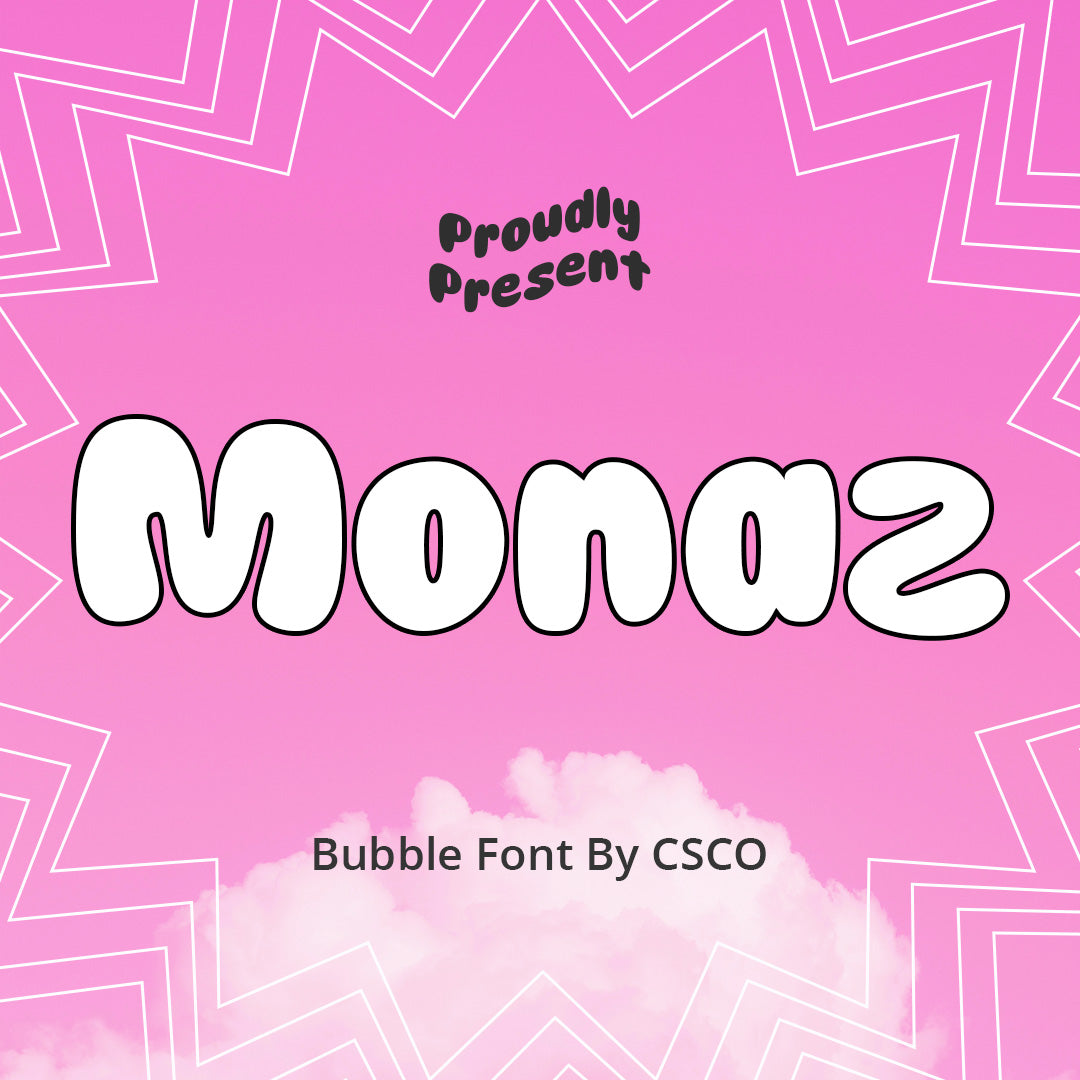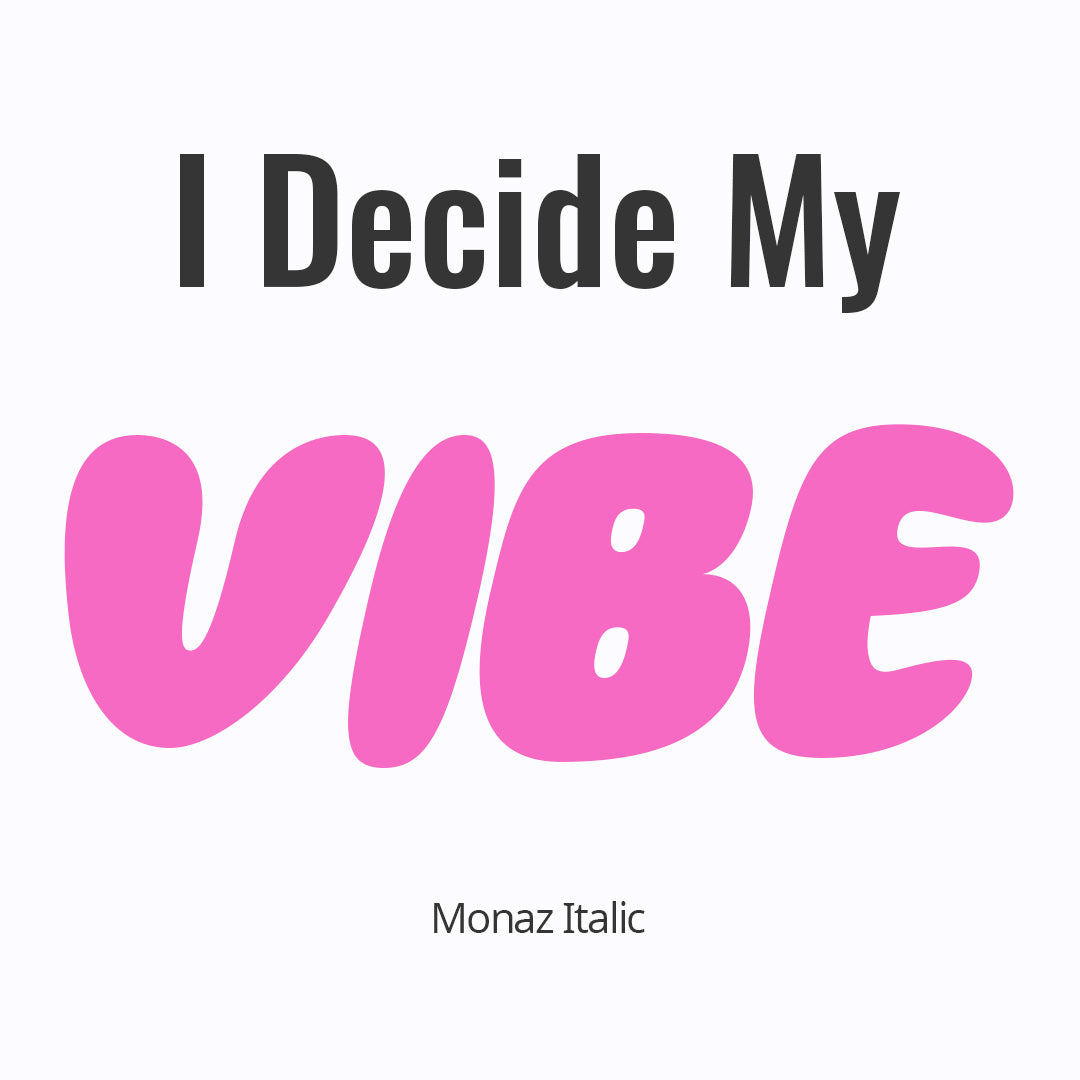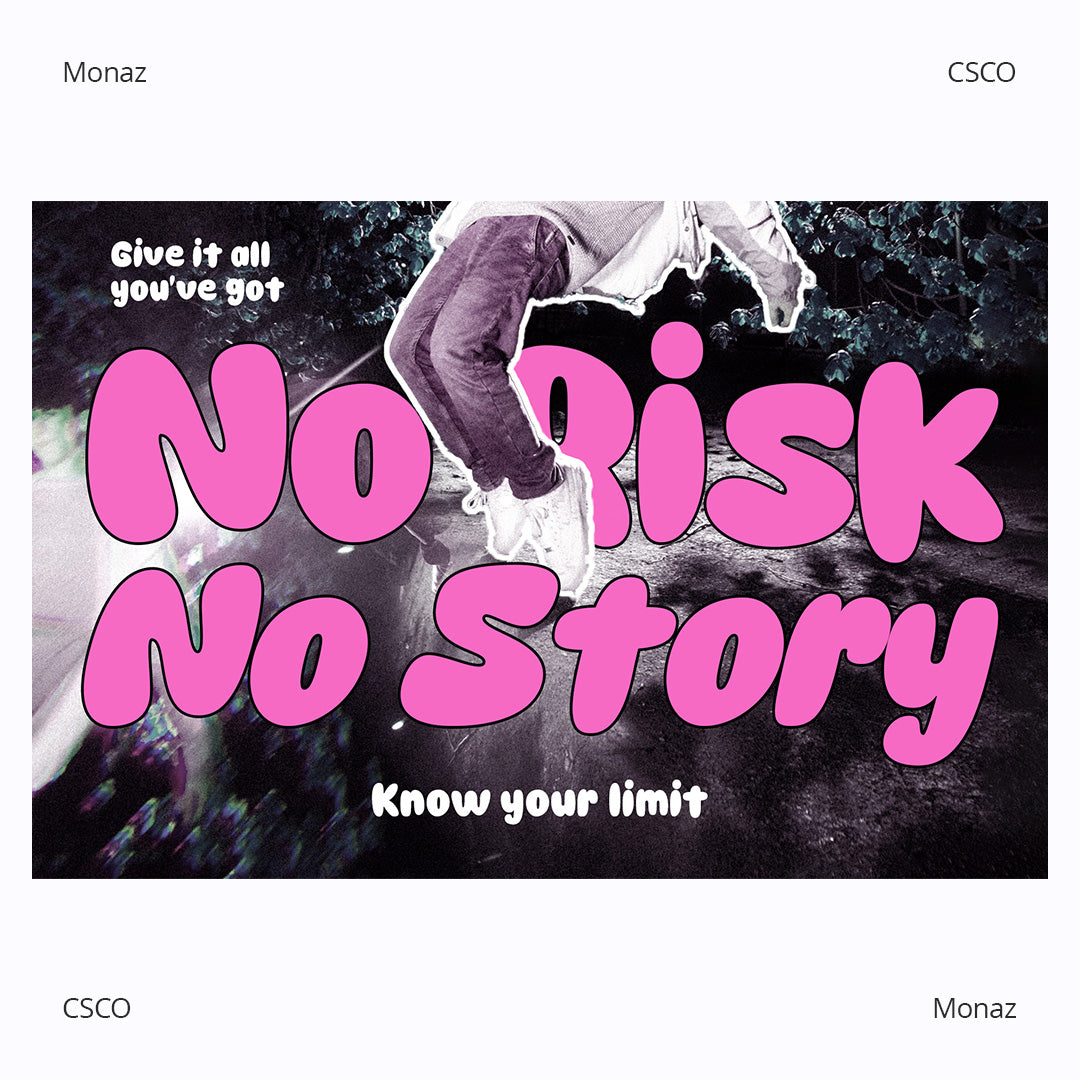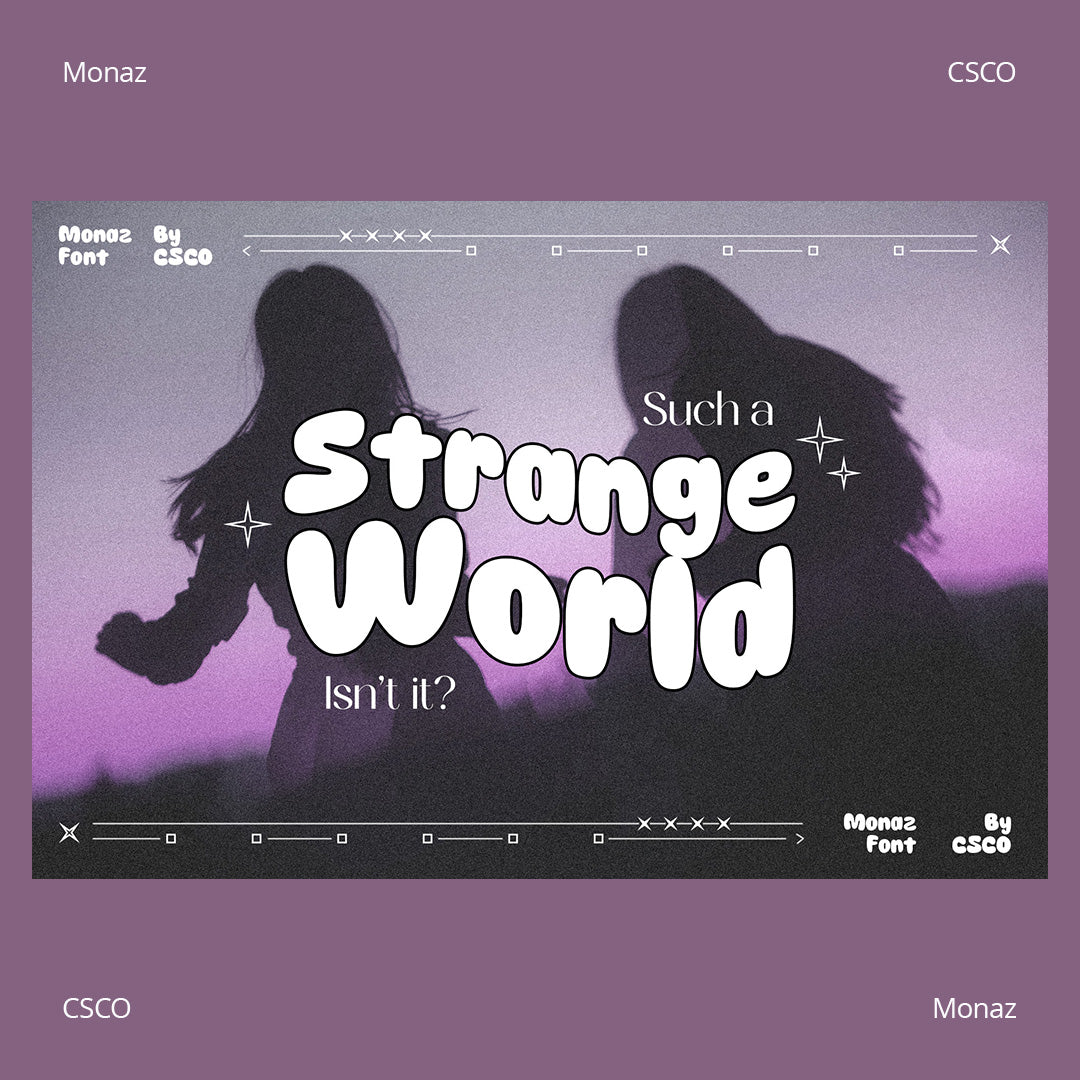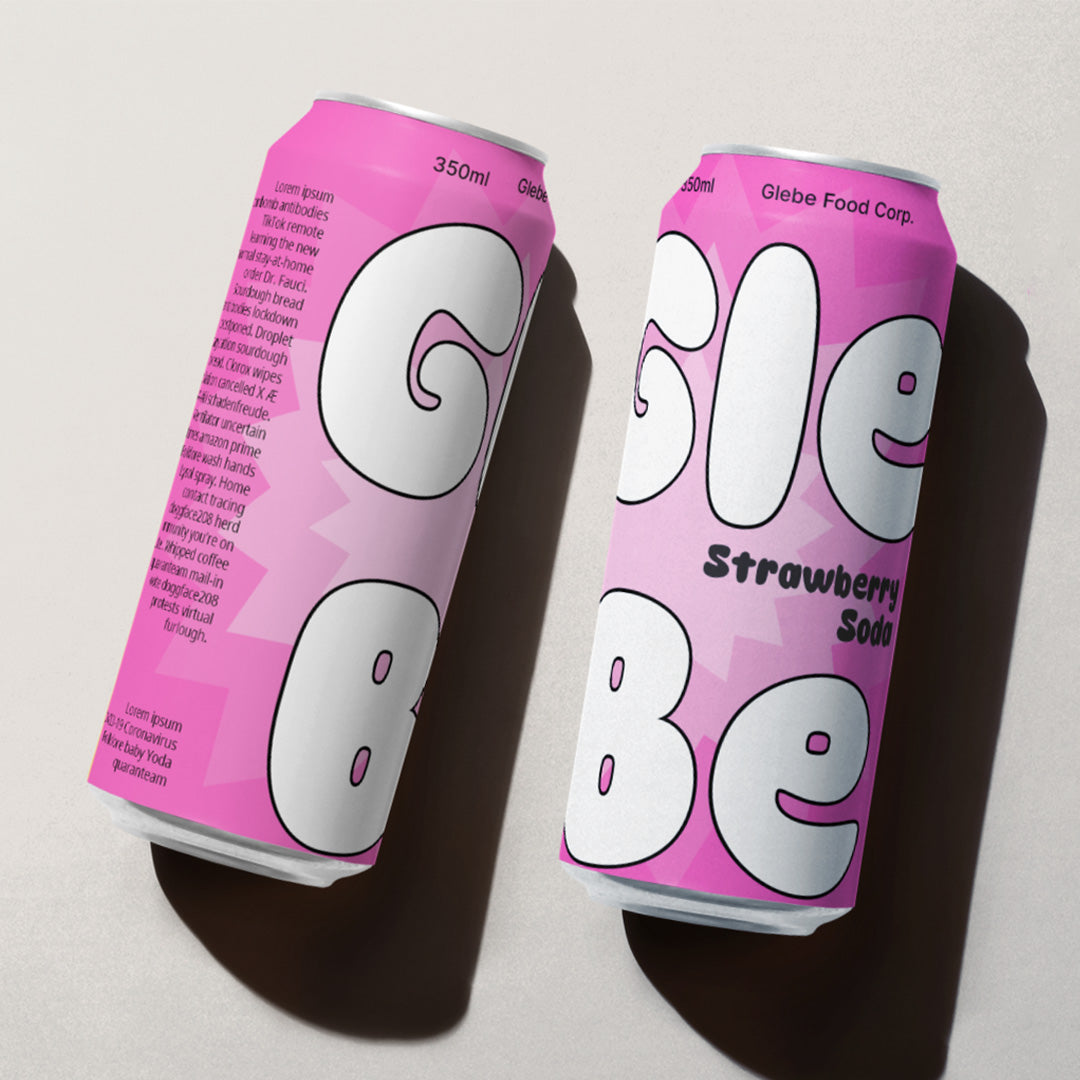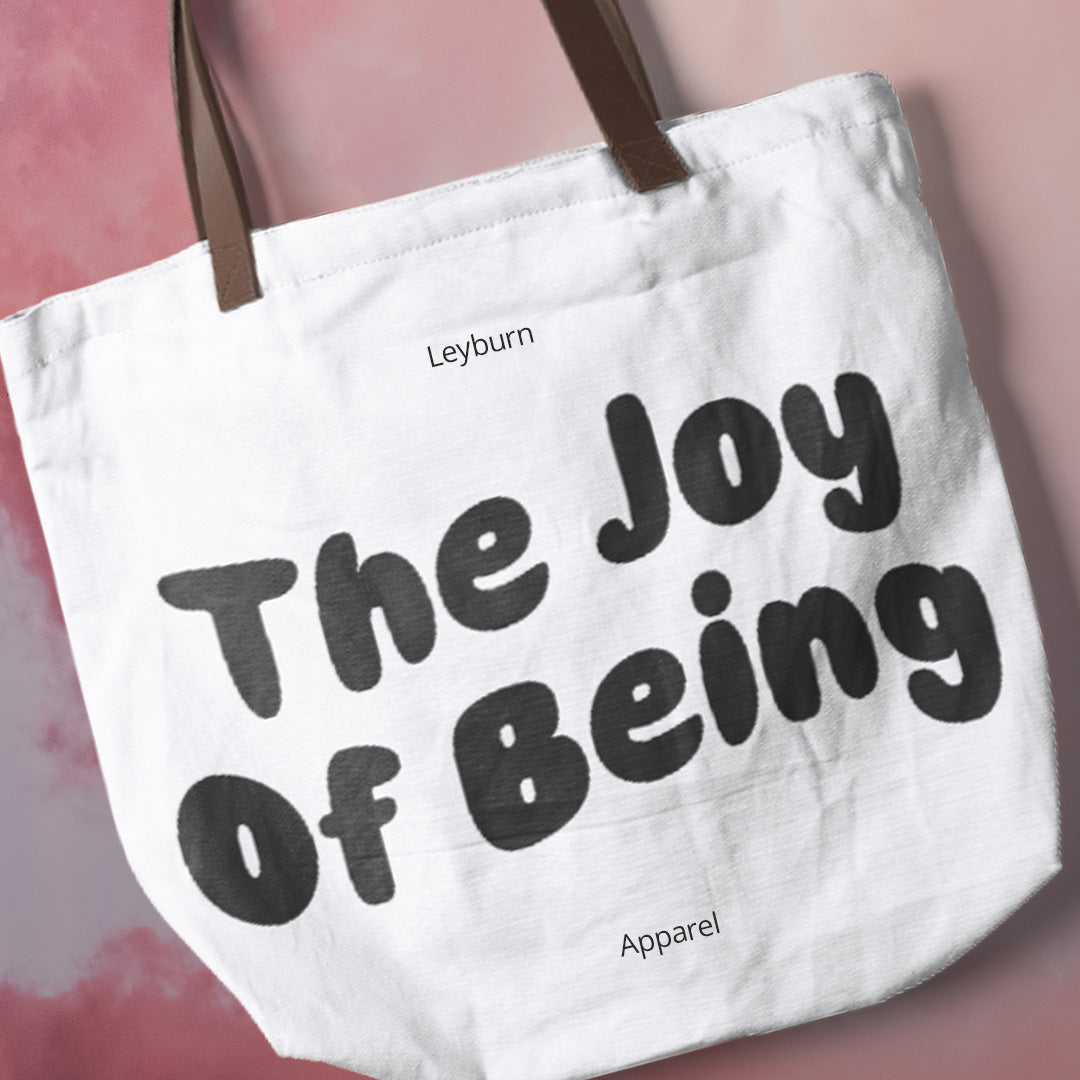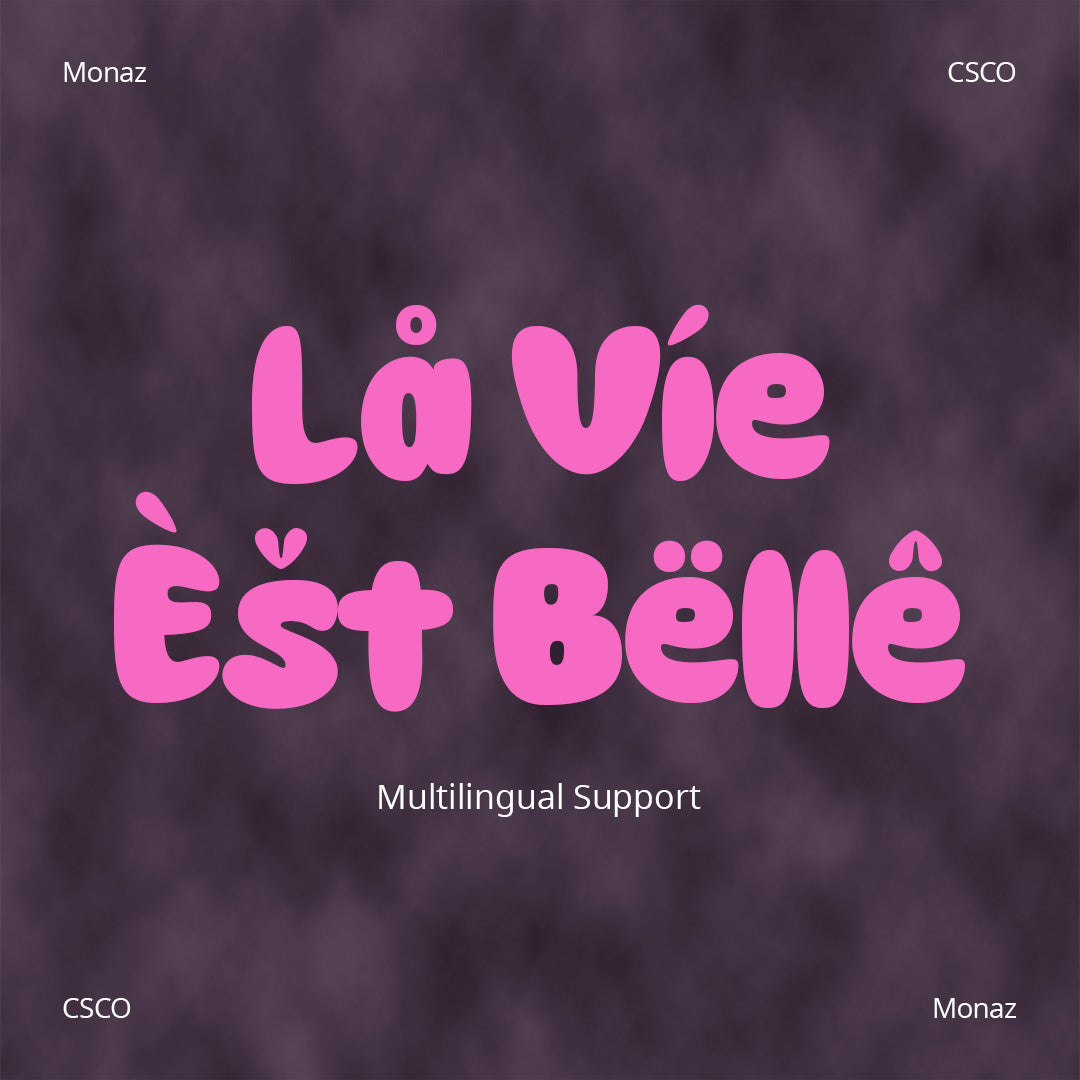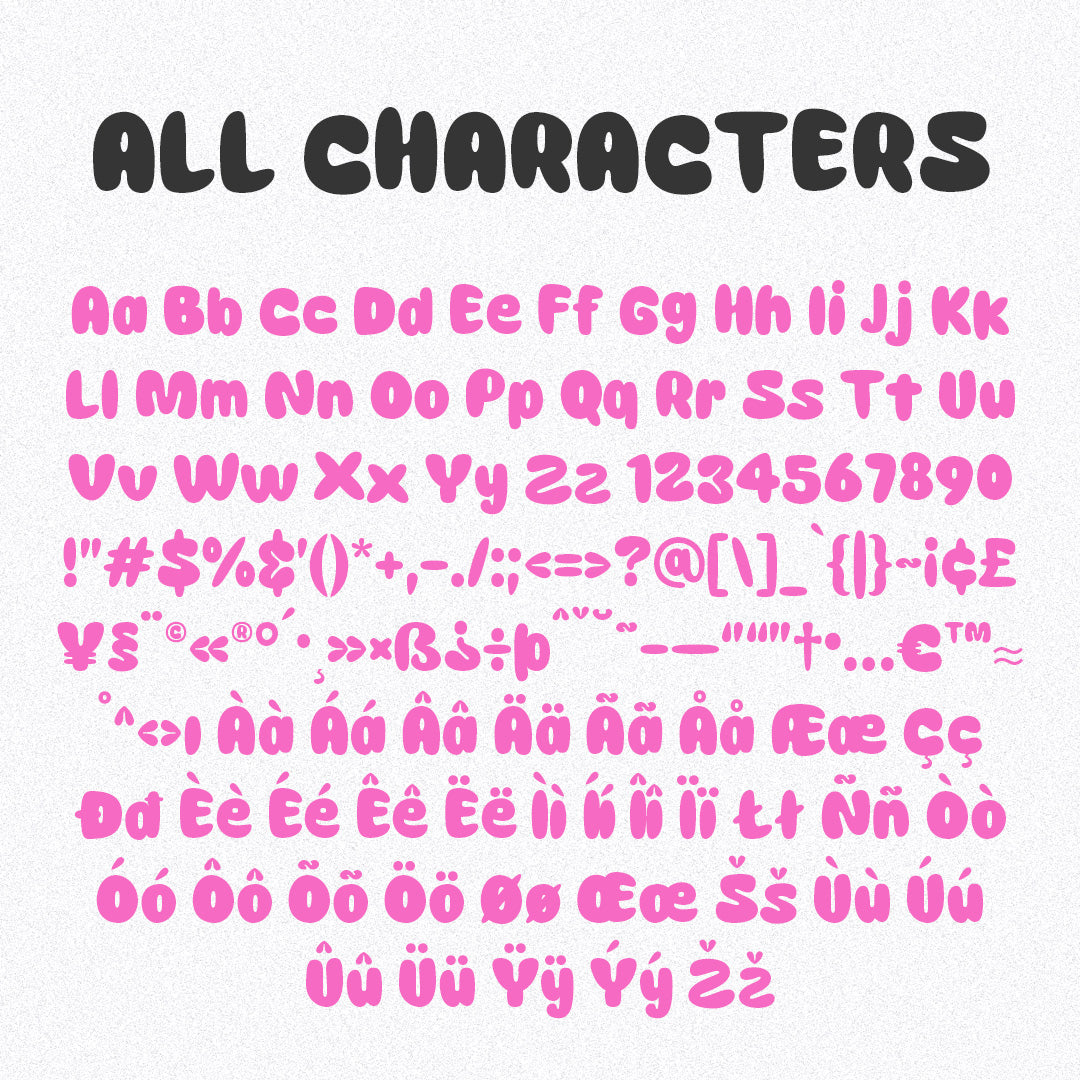
Monaz – Bubble Font
Introduction to Monaz – Bubble Font
Monaz – Bubble Font, a playful and airy display font, is inspired by the lightness and roundness of bubbles and balloons. Perfect for creating eye-catching headings, logos, and children’s books, this font not only grabs attention but also serves as an ideal choice for fun and whimsical projects.
Design and Aesthetics
In its design, Monaz – Bubble Font features characters that resemble bubbles, with rounded edges and a bouncy feel. Furthermore, the letters mimic the floating appearance of balloons, thus adding a cheerful and lighthearted touch to any design. Additionally, its rounded forms are easy on the eyes, ensuring readability while preserving its playful charm.
Versatility and Usage
Monaz – Bubble Font boasts high versatility, fitting a variety of design needs effortlessly. Not only does it shine in party invitations and product packaging, but it also excels in promotional materials. Moreover, its effectiveness extends to educational materials for children, making learning engaging with its friendly appearance. As a result, its readability and unique style make it a top choice for designers seeking to add a fun element to their projects.
Accessibility and Appeal
Designed for a wide audience, Monaz – Bubble Font features a simple and clear style that is easy to read. It appeals to all ages, capturing the whimsy of childhood while still being sophisticated enough for adult projects. In summary, this font brings a unique joy and playfulness to any design, making it a valuable addition to any font collection.
Monaz Regular
Monaz Italic
Monaz – Bubble Font is a playful display font featuring rounded characters that resemble bubbles and balloons, designed for readability and visual appeal. It includes both Monaz Regular and Monaz Italic styles, making it suitable for a variety of design projects.